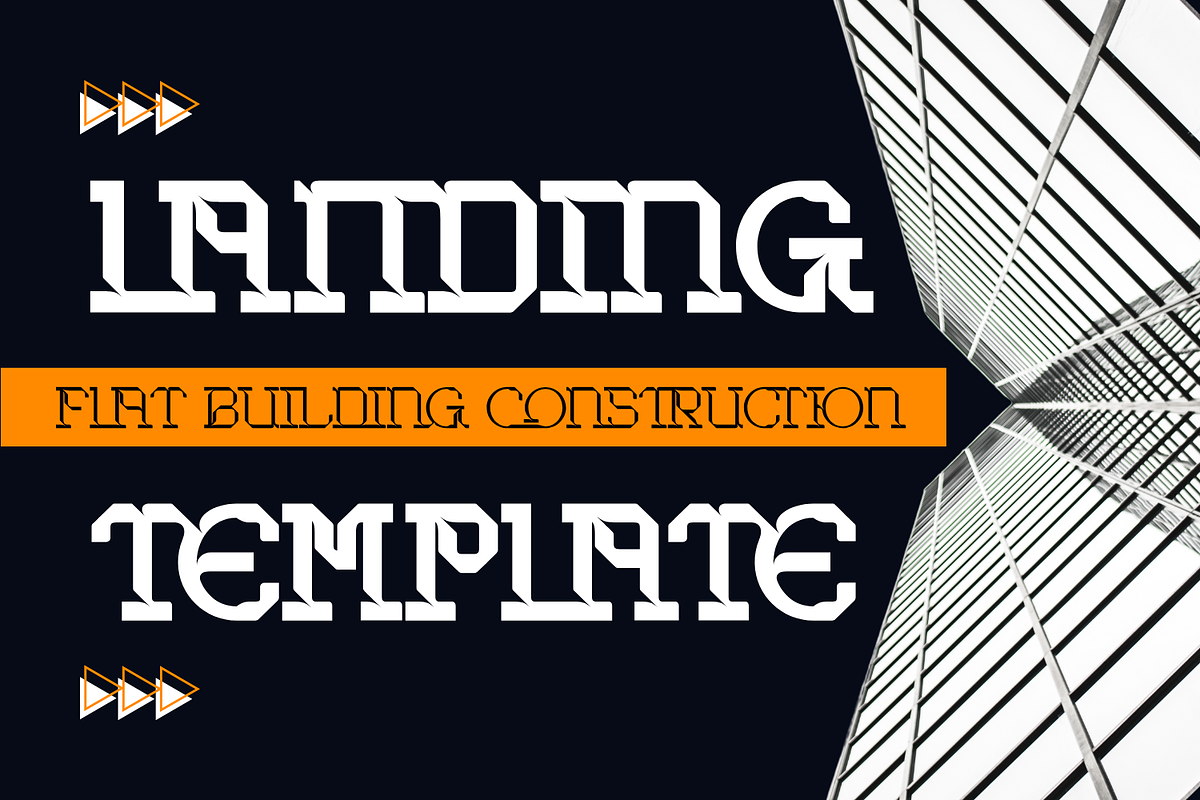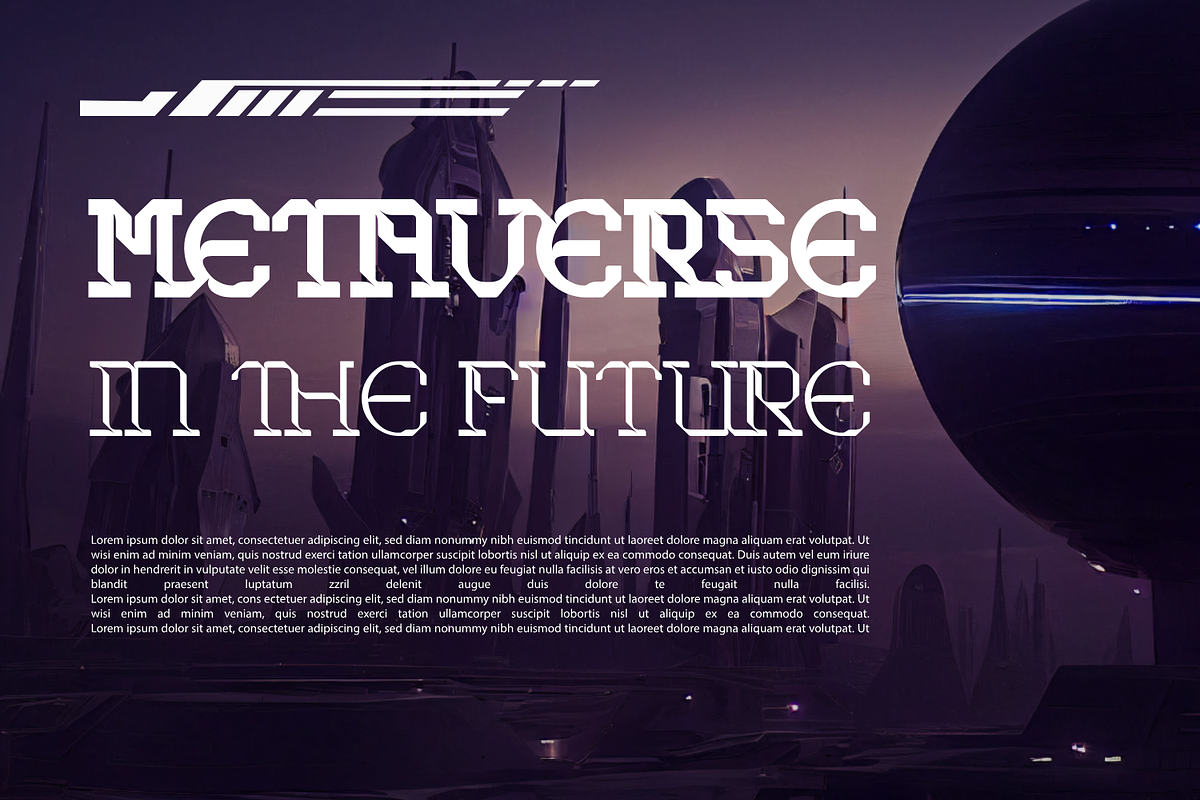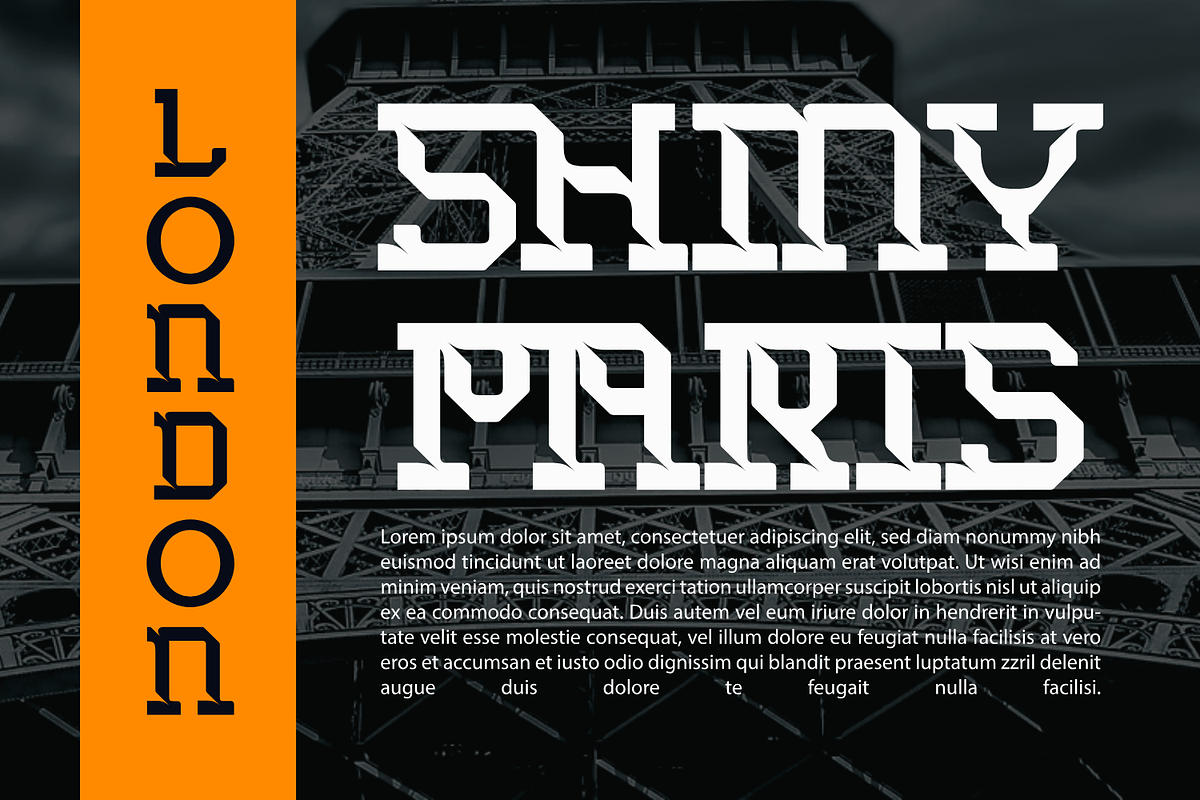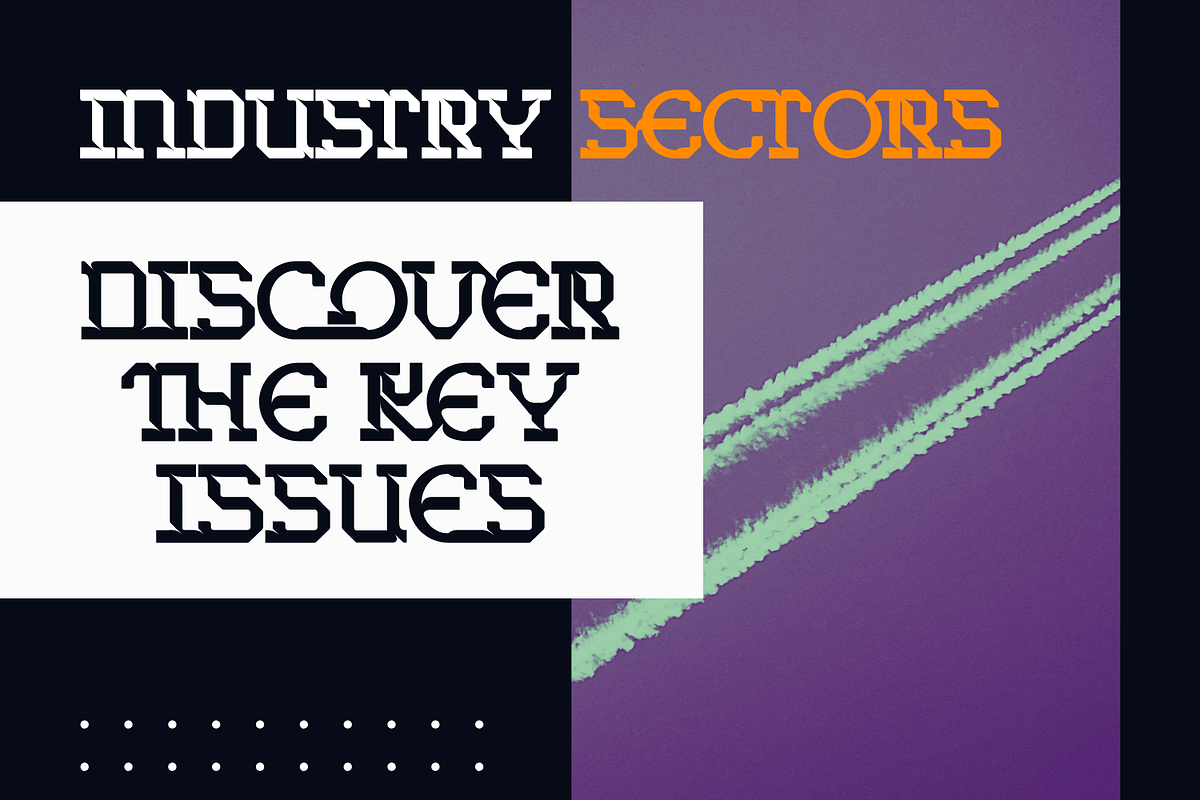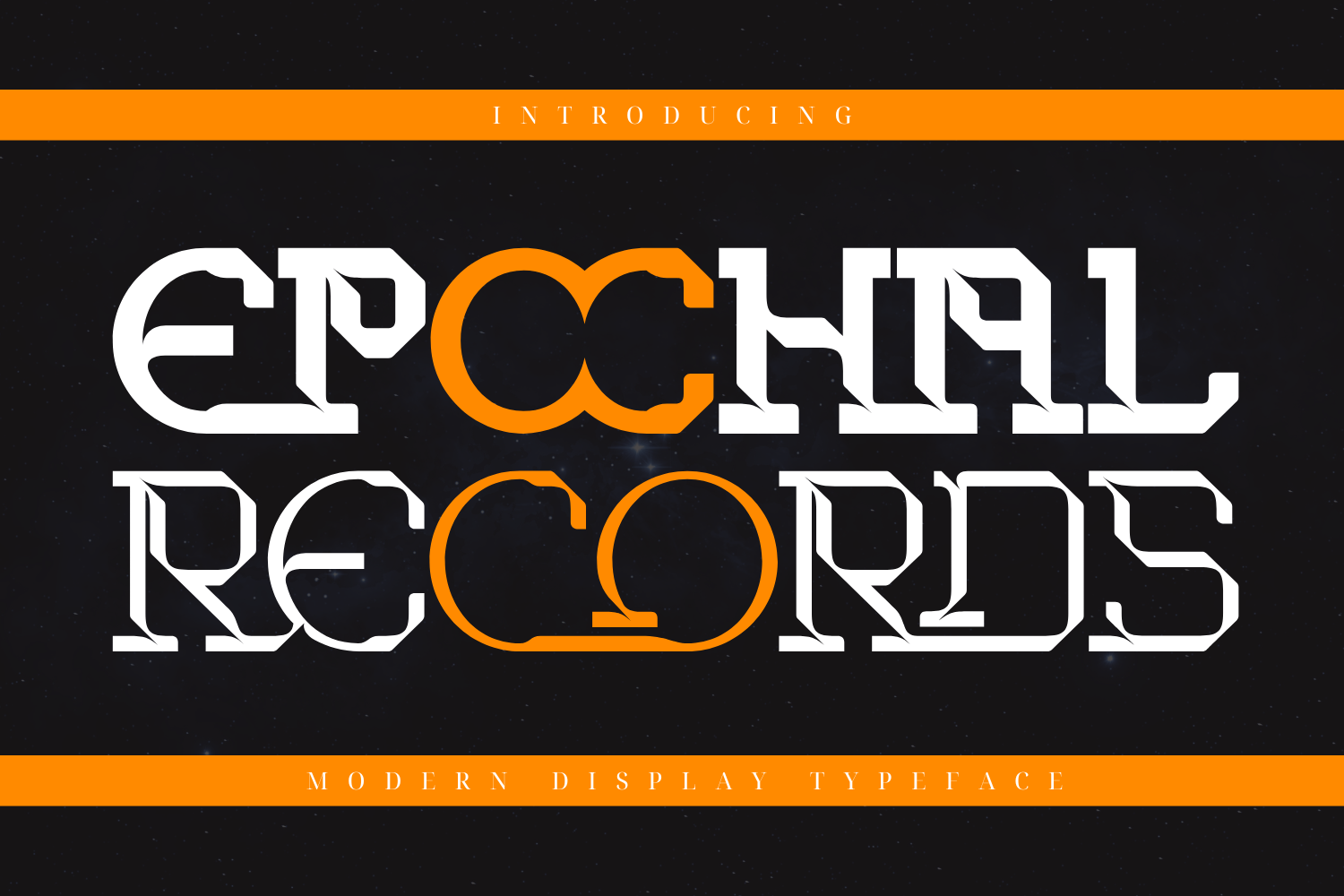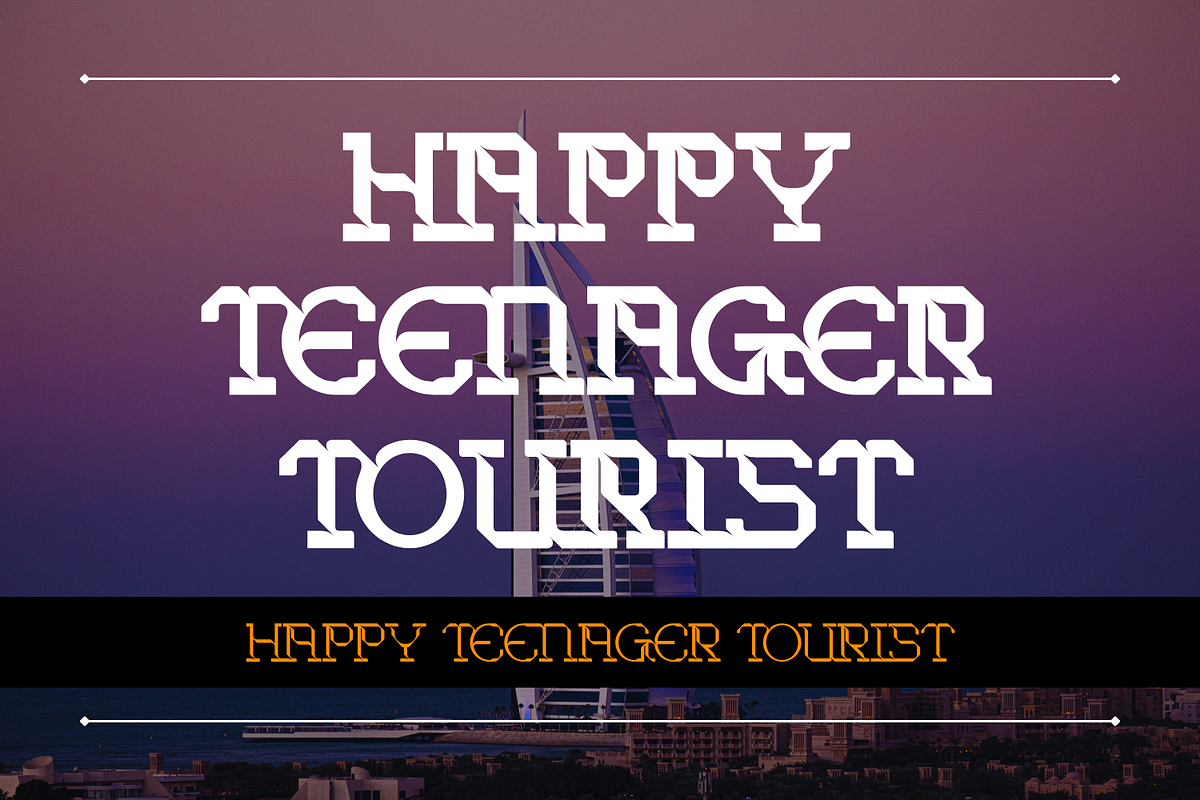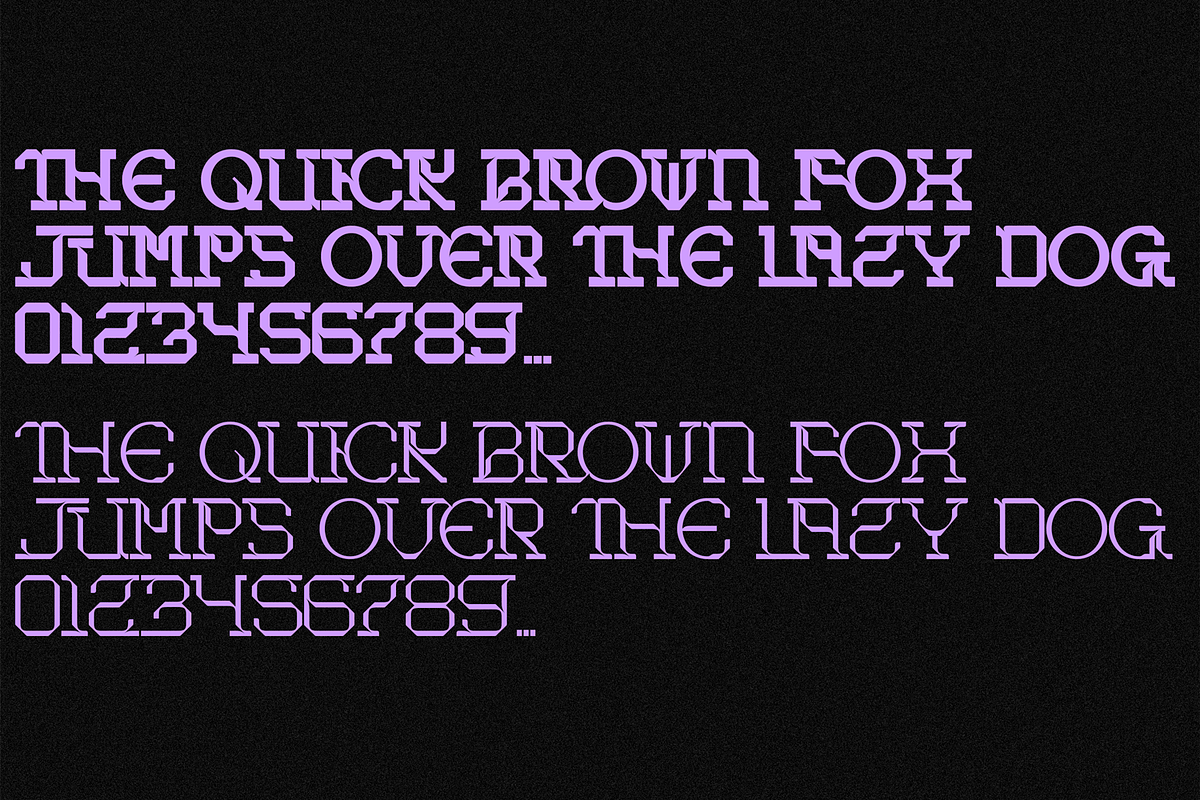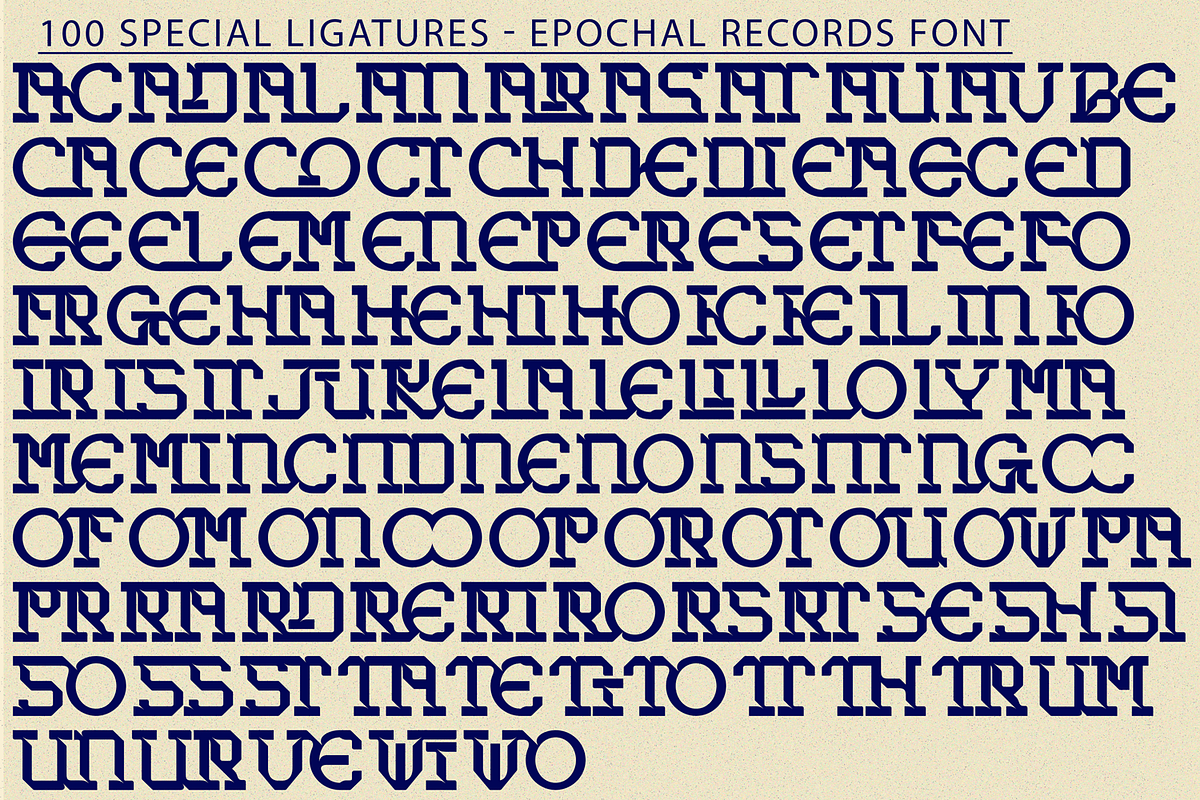
Epochal Records - Futuristic Font
Epochal Records Font is a blocky futuristic display font that radiates futuristic and modern style. It's unique Tech Serif Font neovintage style, combines hi-tech cyberpunk and futuristic atmosphere and classic serif's style. It is designed for header and text both. Use it in your projects in such areas as robots & androids, cyberpunk, hi-tech, future, virtual reality, space, army, games and many others.
Epochal Records was built with OpenType features and includes 100 ligatures, alternate, numbers, punctuation, and it also supports other languages.
AC AD AL AN AR AS AT AU AV BE CA CE CH CO CT DE DI EA EC ED EE EL EM EN EP ER ES ET FE FO FR GE HA HE HI HO IE IC IL IN IO IR IS IT JU KE LA LE LI LL LO LY MA ME MI NC ND NE NG NO NT NS OC OF OM ON OO OP OR OT OU OW PA PR RA RD RE RI RO RS RT SE SH SI SO SS ST TA TE TH TI TO TR TT UM UN UR VE WI WO
This font also included full set of:
- Uppercase letters
- Special Ligatures